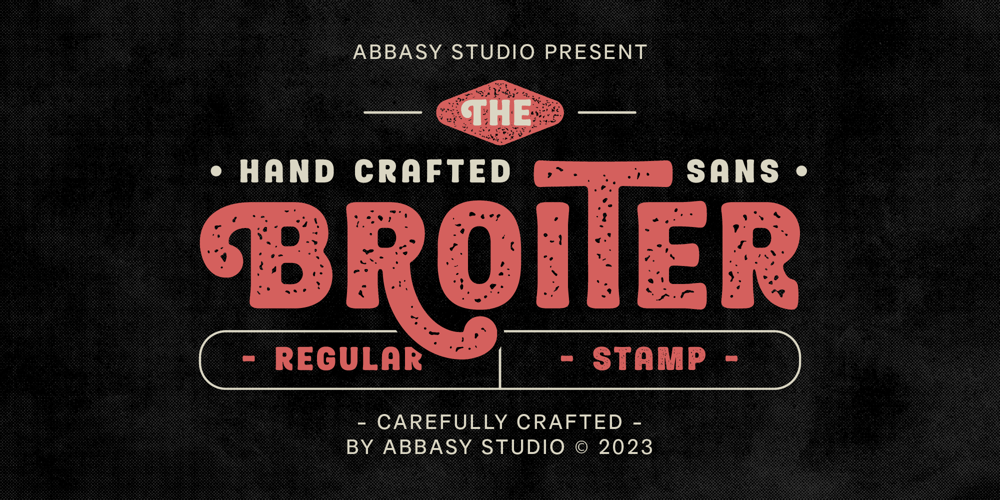
Broiter
Broiter font
Broiter Font Family was designed by Angga Kristiandri and published by Abbasy Studio. Broiter contains 2 styles and family package options. Introducing Broiter, 2 font mono weight family with plenty of alternative long stemmed characters. These 2 fonts make it effortless to create hand made lettering, and perfectly suitable for made to be applied in logo, and the other various formal forms such as invitations, labels, logos, magazines, books, greeting / wedding cards, packaging, fashion, make up, stationery, novels, labels or any type of advertising purpose.